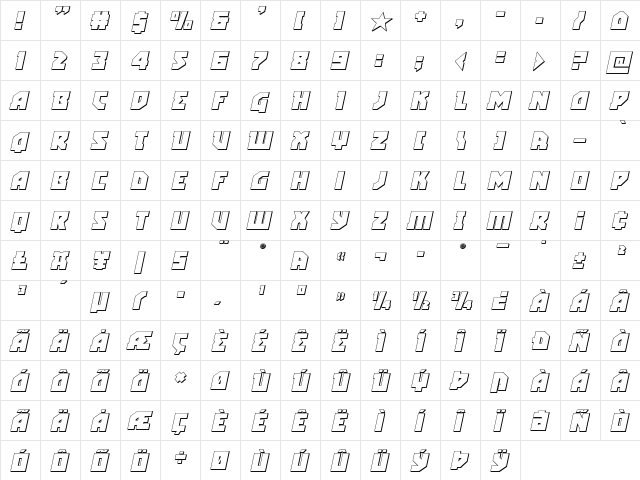
Arctic Guardian 3D Italic Italic
Design Context for Arctic Guardian 3D Italic Typeface
Arctic Guardian 3D Italic is a composed and adaptable typeface that performs quietly and consistently across a wide range of design contexts. The dynamic lean of this cut emphasises speed and emphasis in any layout.
Pro Tip: Try Arctic Guardian 3D Italic for annotation and caption copy alongside an upright companion — the contrast in angle creates a dynamic but ordered typographic system.